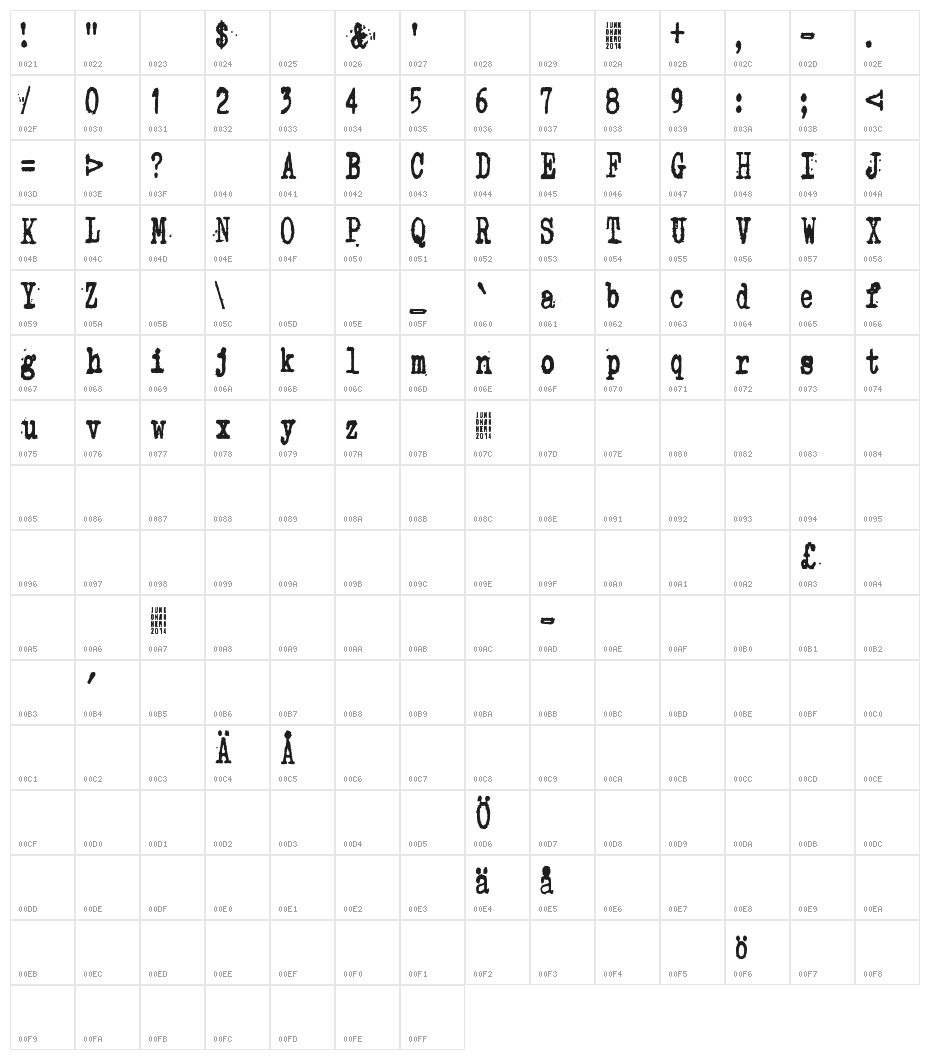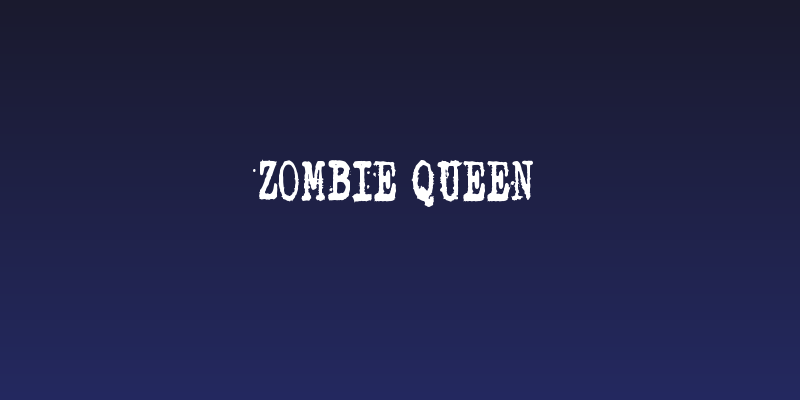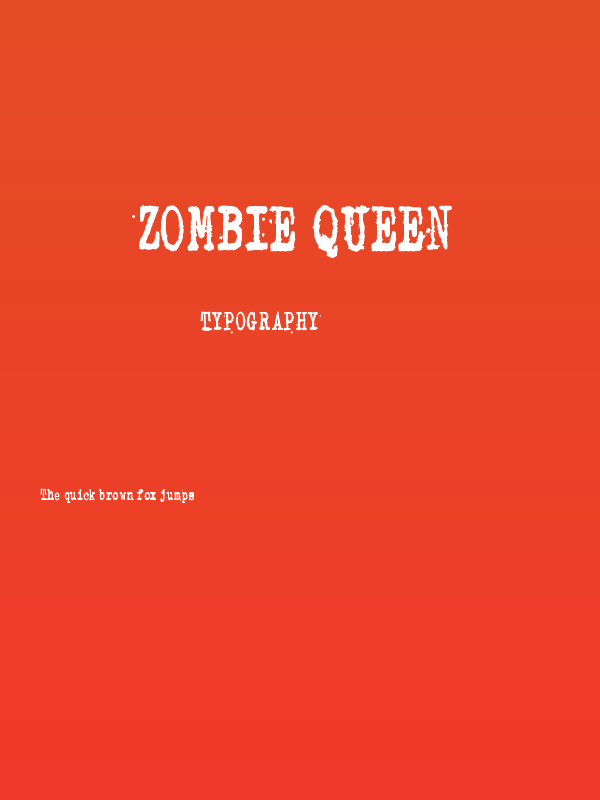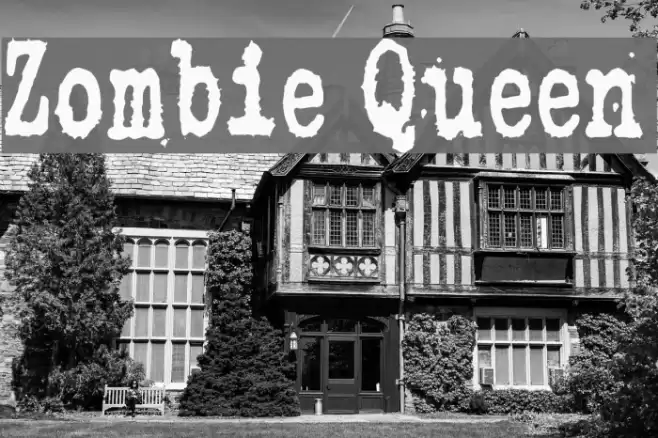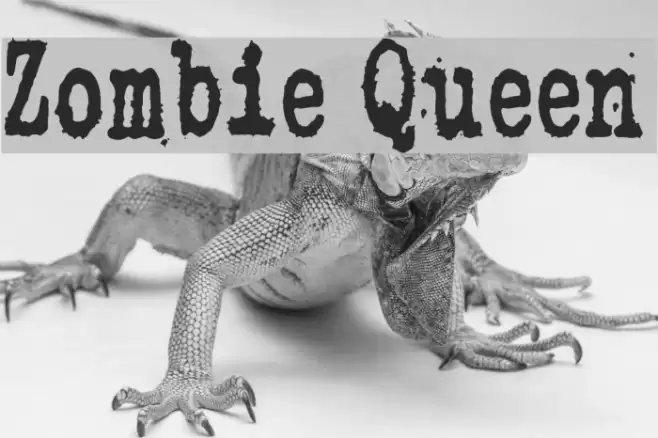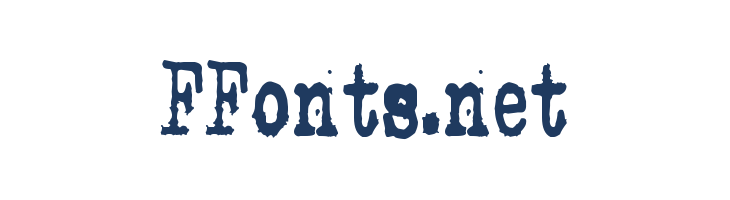
Zombie Queen Font
Zombie Queen Description
This font features a distressed, grunge style with a textured appearance that mimics the look of aged, worn-out type. The characters have irregular edges and a rough, uneven surface, giving them a unique, hand-crafted feel. The uppercase and lowercase letters maintain a consistent style, while the numbers and special characters complement the overall aesthetic. This font is ideal for projects that require a bold, eye-catching design with a vintage or rebellious edge.
| Overall Style | Vintage, Grunge |
| Use Case | Headlines, Posters, Branding |
| Proposed Projects | Perfect for album covers, posters, horror-themed designs, and edgy branding projects. |